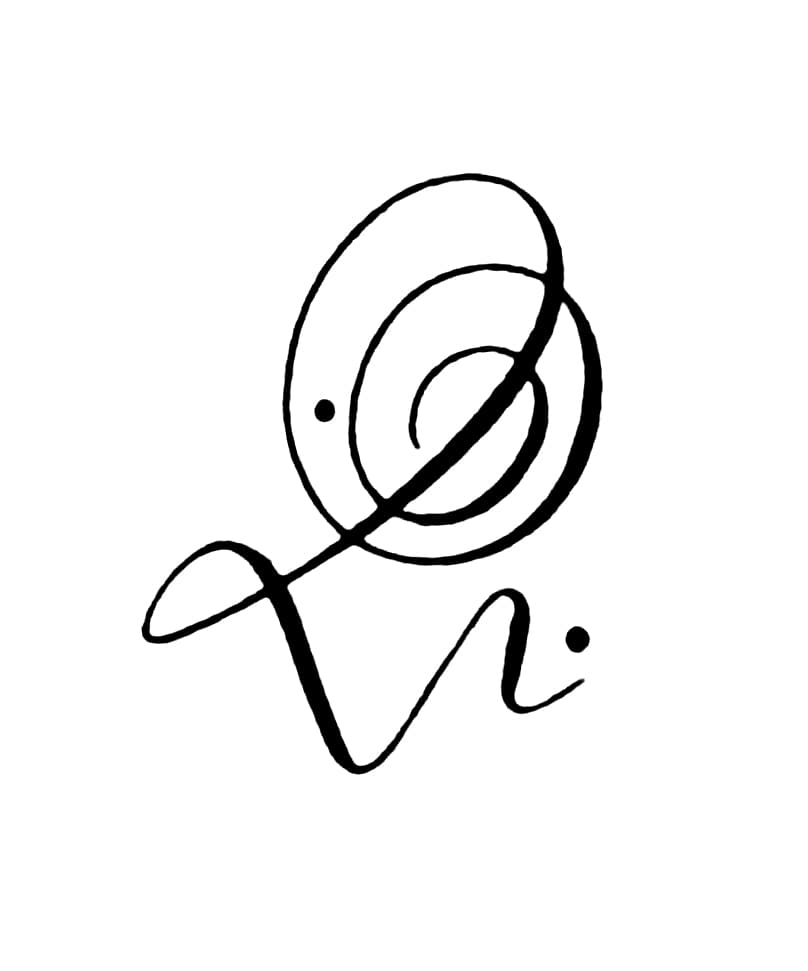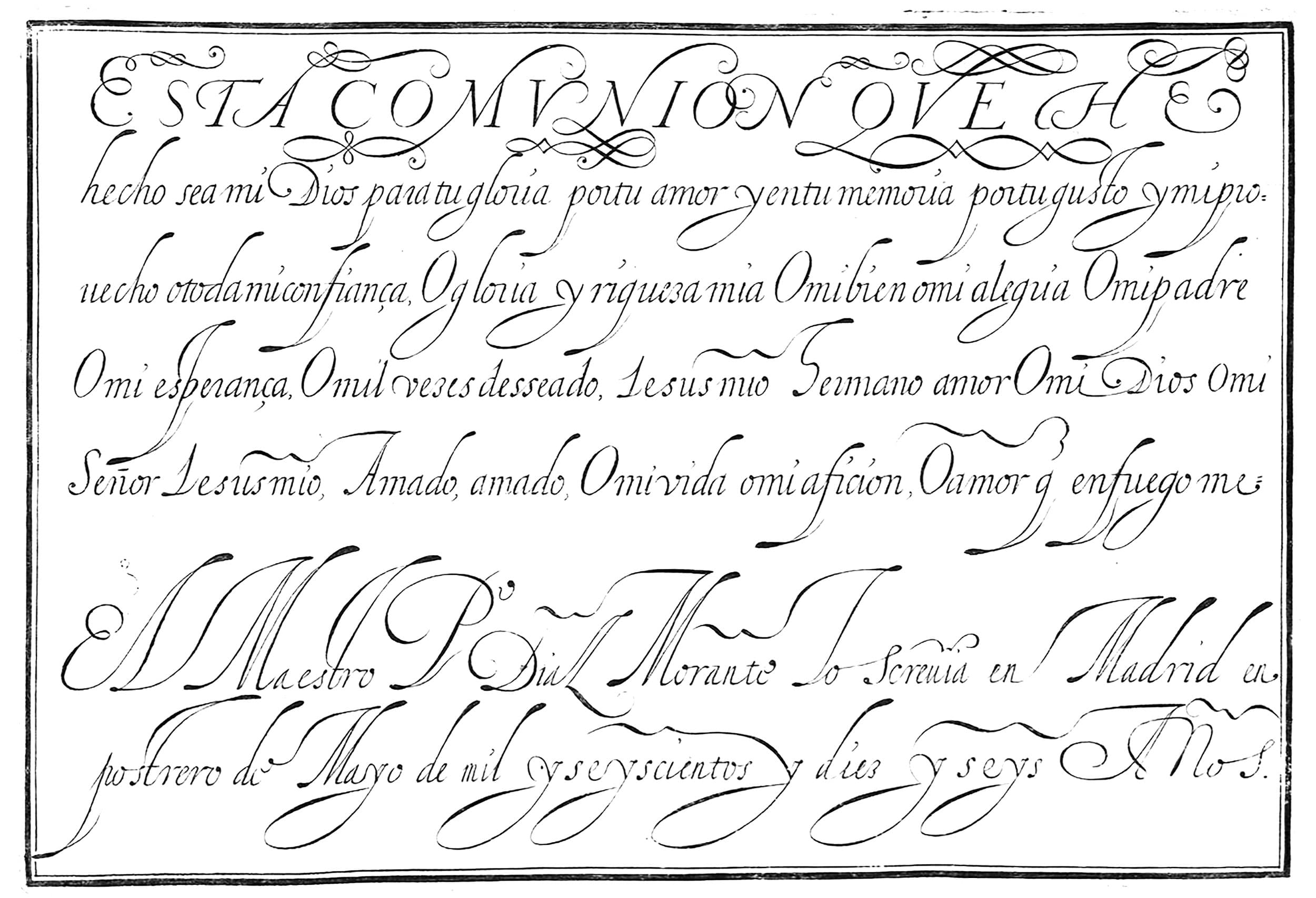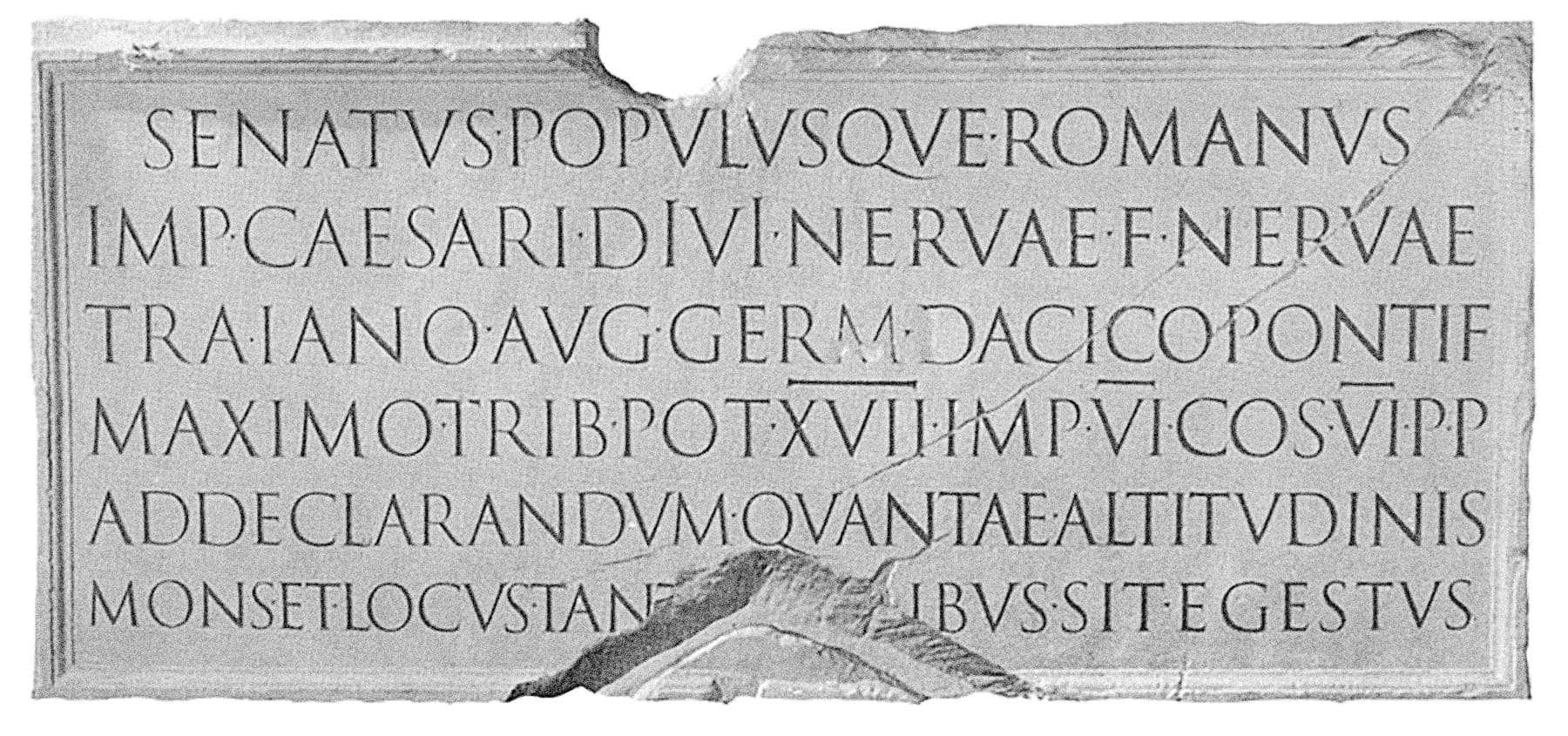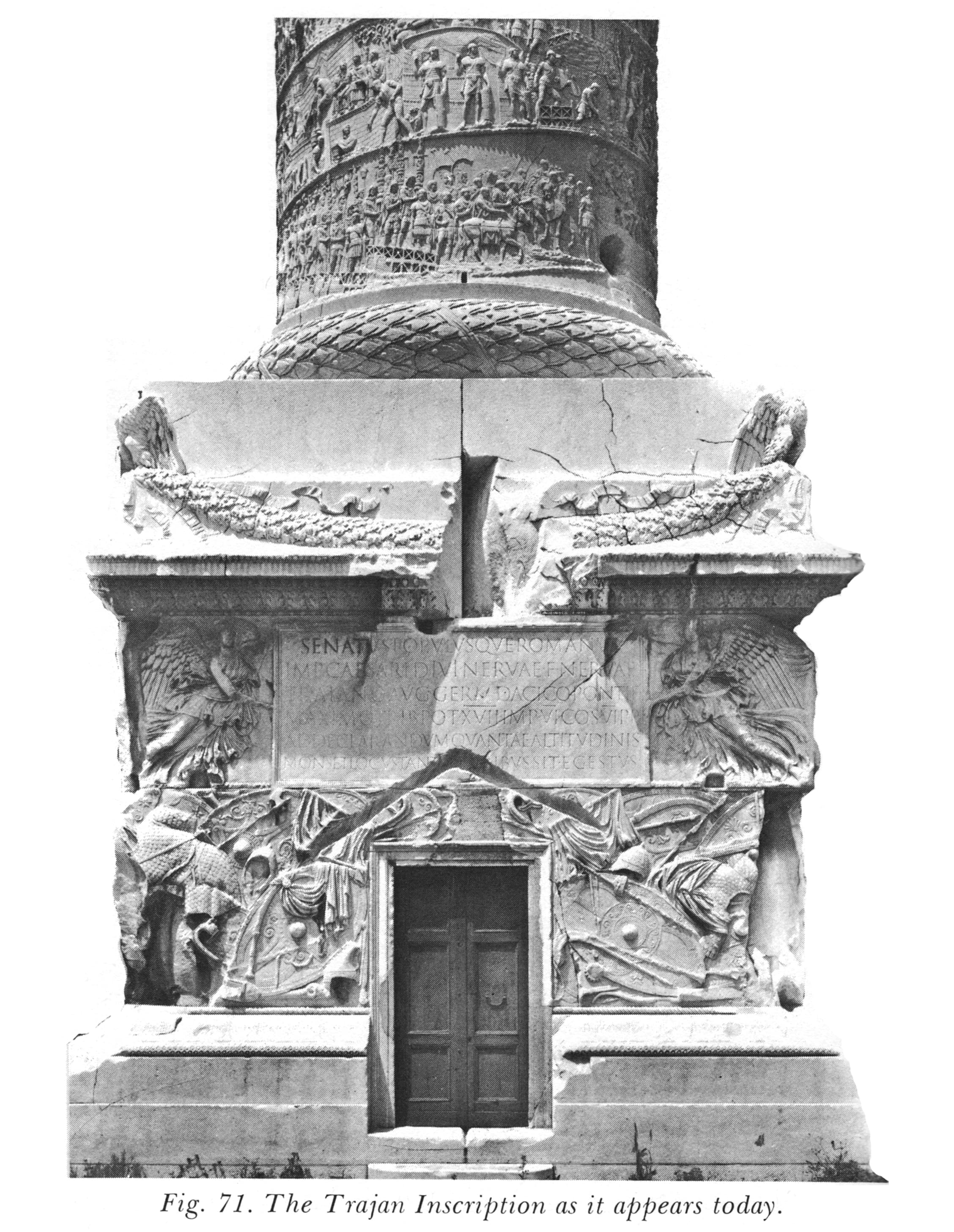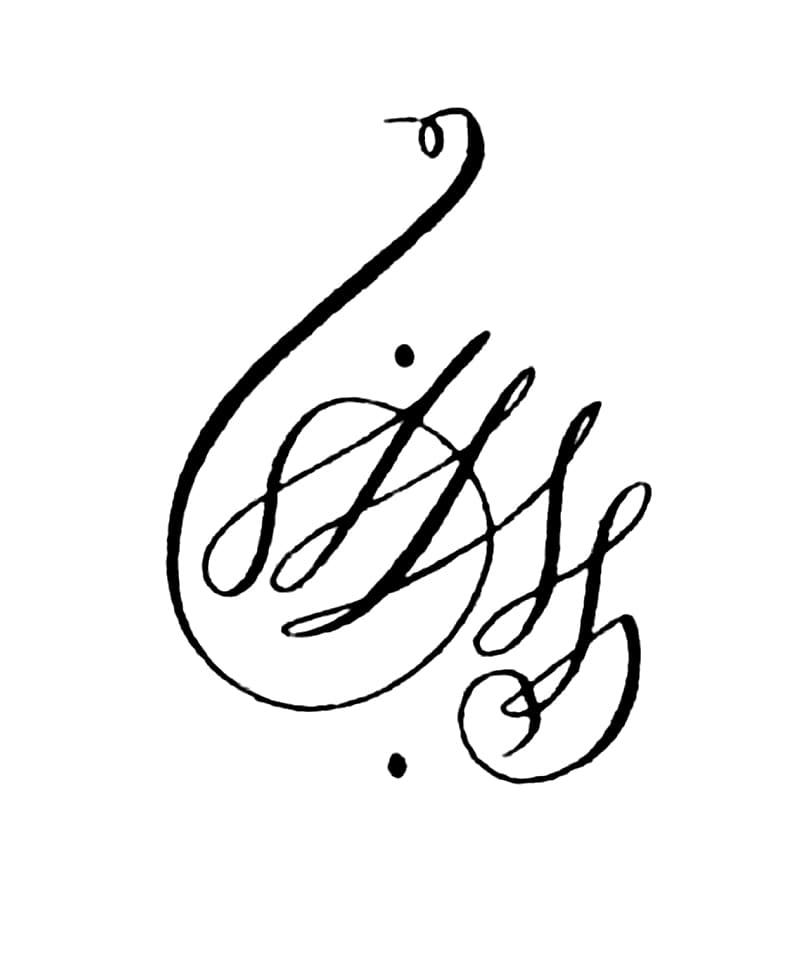
Sharp Roman
Sharp Roman Display is the calligraphic convergence of two distinct origin stories. The roman uppercase forms are Lucas’s take on the Trajan Monumental Roman Capitals via Edward Catich, while the Italic is based on the work of Pedro Diaz “El Maestro” Morante. Sharp Roman Display becomes more than the sum of its parts, offering a wealth of typographic potential: instantly indelible, elegant in its expressiveness, and full of bravura.
Sharp Roman skillfully connects the work of two masters who were separated by continents and centuries into a single family sharing a calligraphic framework, making for a typeface that is classical in its construction and contemporary in its execution.
Designer: Lucas Sharp